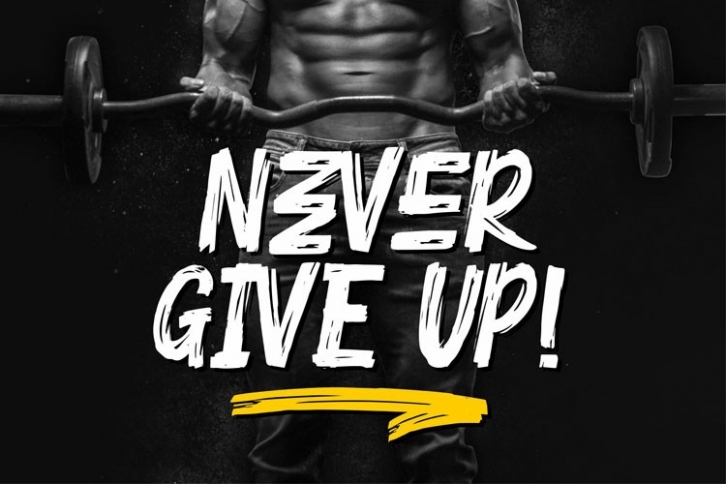
Crushed Stone is a great font that was designed by HanzelStudio. Imagine the amount of combinations you can create using this font! The archive is 10.89 MB and it was released on December 29, 2019. Crushed Stone looks beautiful on wedding invitations, greeting cards, logos, posters, labels, t-shirt designs, logos, business cards and is perfect for use in ink or watercolor works, fashion, magazines, packaging and food menus, children's books and more!